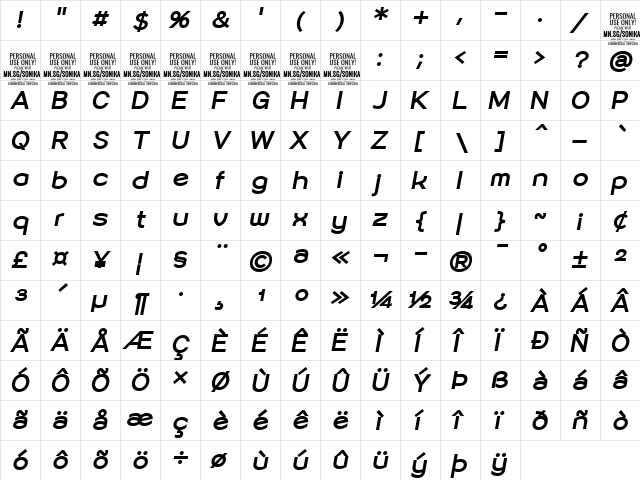
Sonika PERSONAL USE Bold Italic
Design Context for Sonika PERSONAL USE Typeface
Sonika PERSONAL USE is a composed and adaptable typeface that performs quietly and consistently across a wide range of design contexts. The slanted form adds forward momentum and visual energy. The heavy weight commands attention and anchors typographic hierarchies.
Pro Tip: Try Sonika PERSONAL USE for annotation and caption copy alongside an upright companion — the contrast in angle creates a dynamic but ordered typographic system.